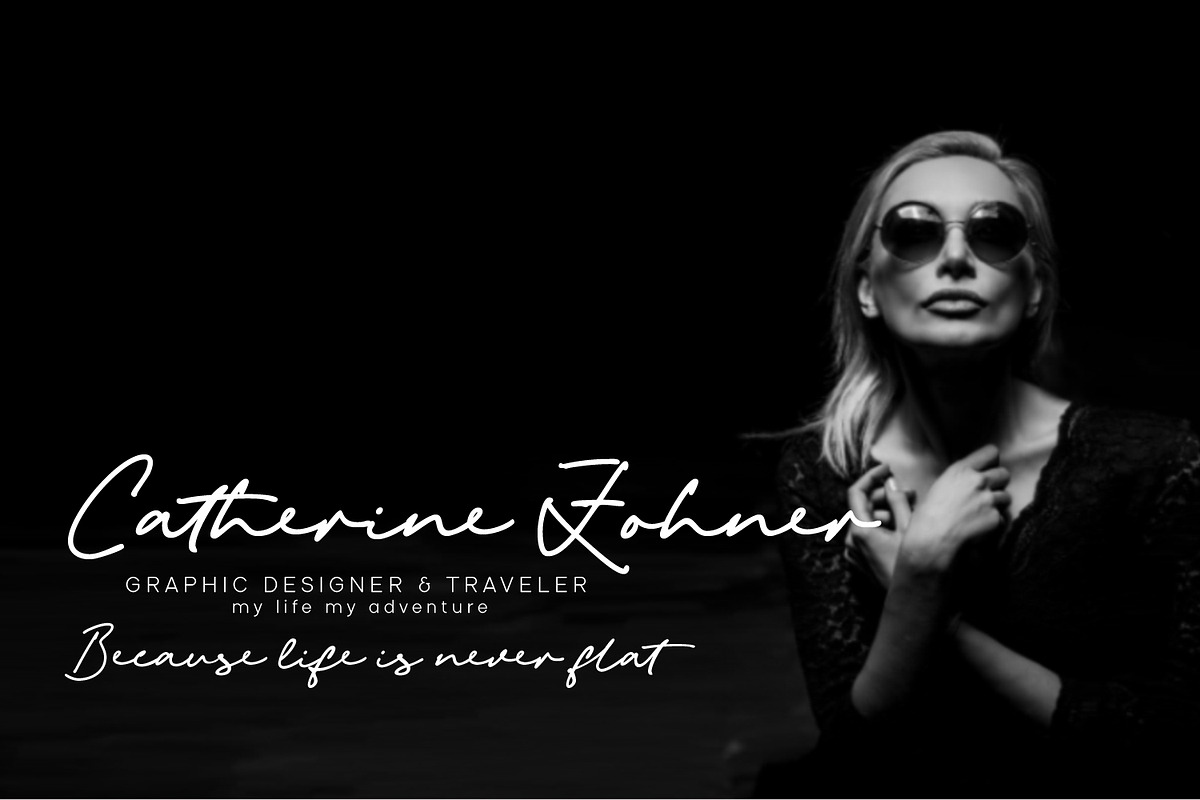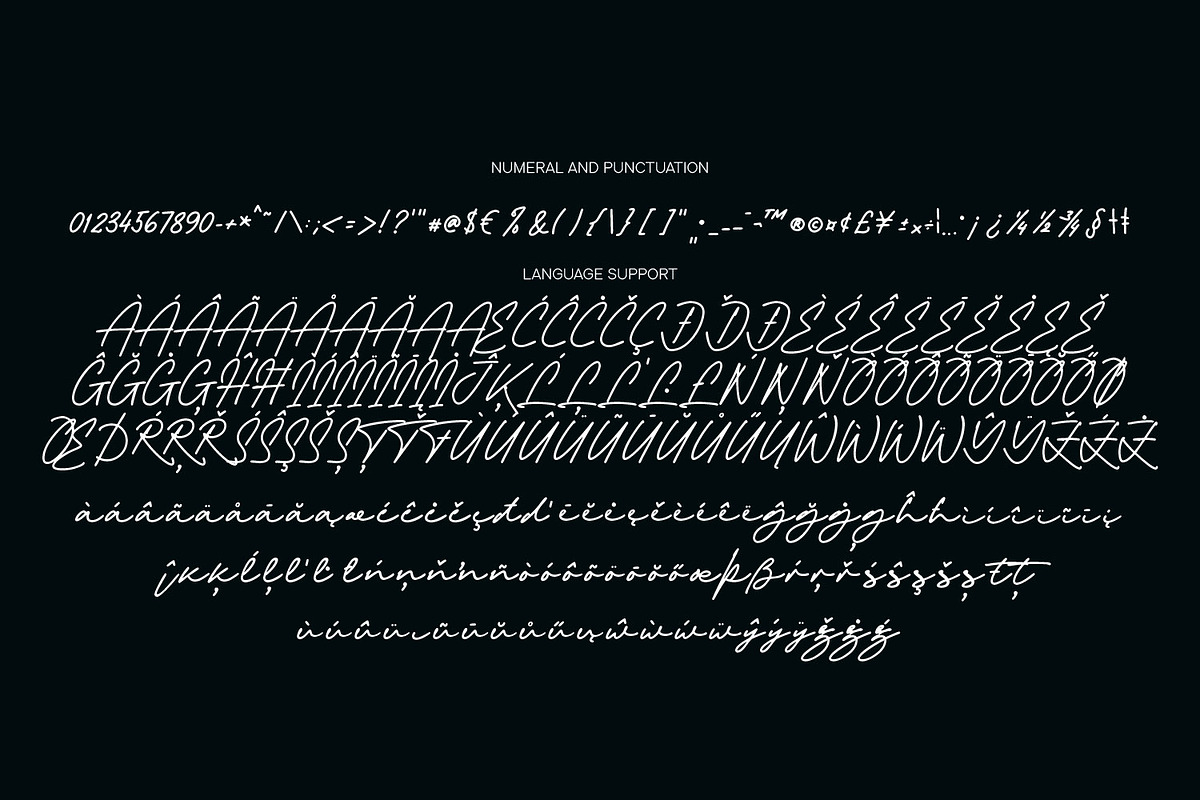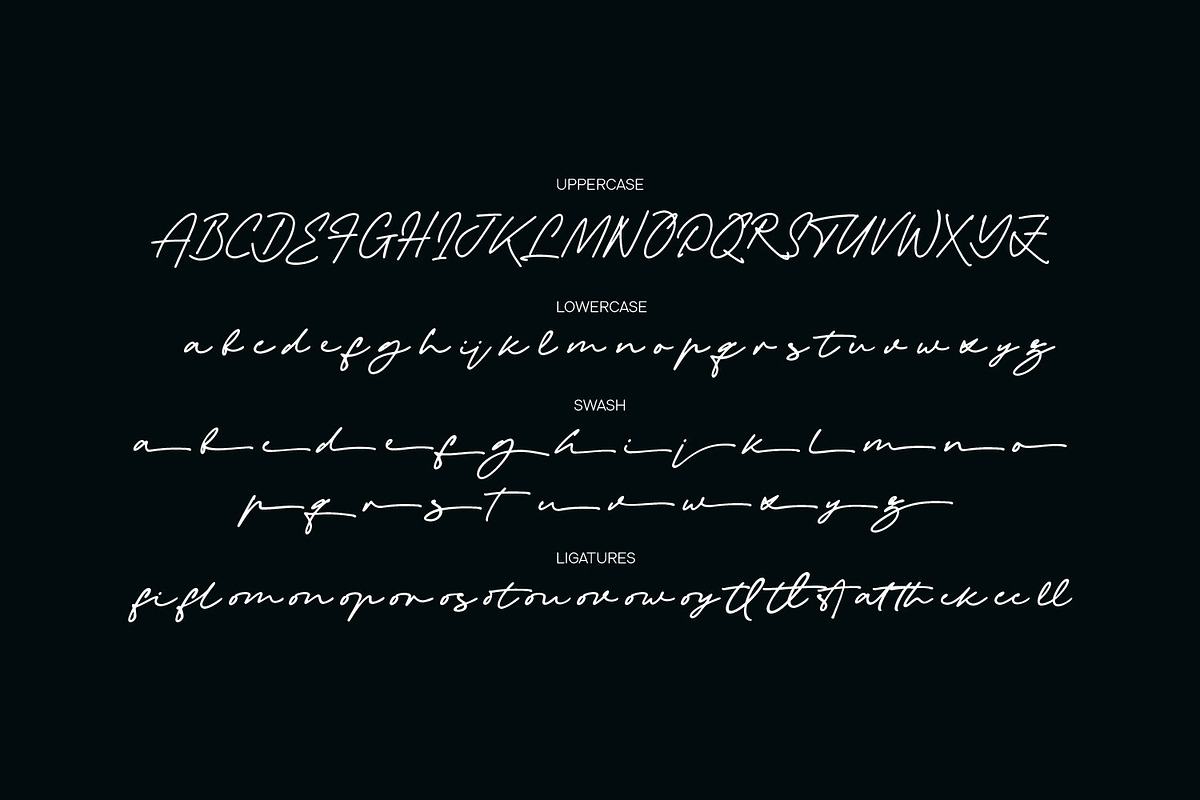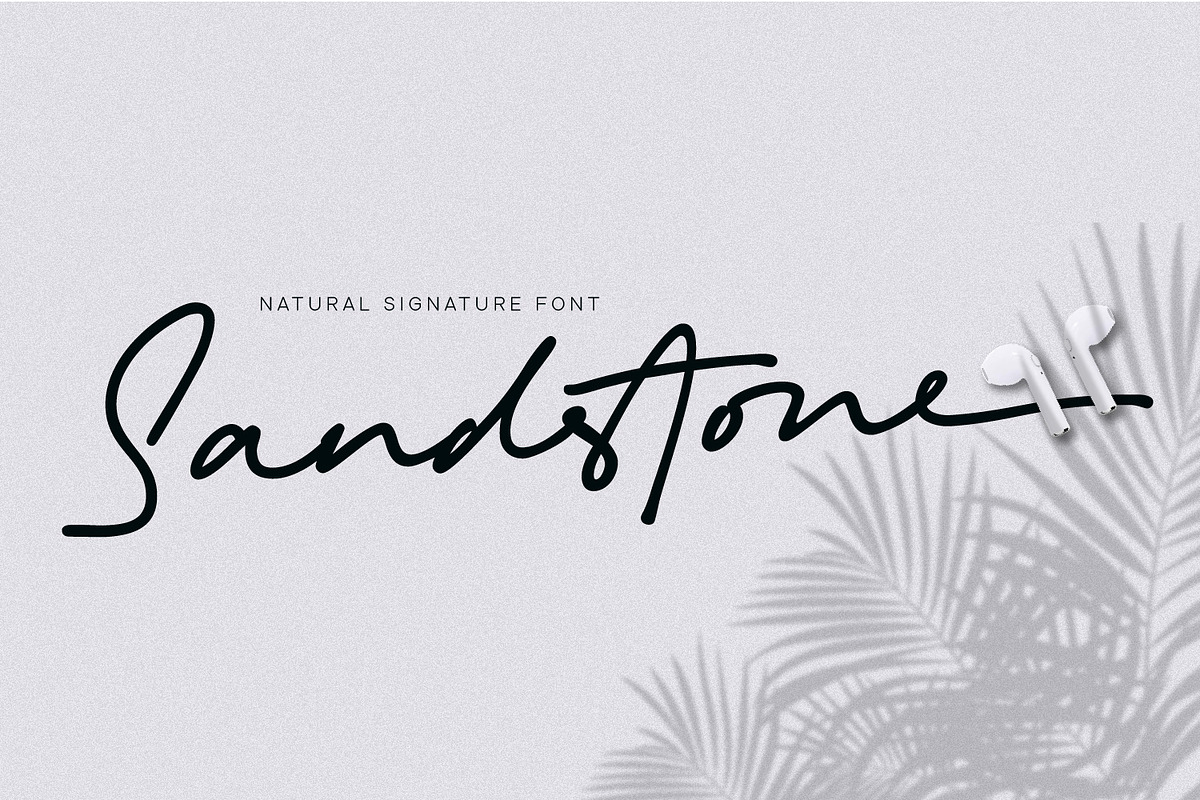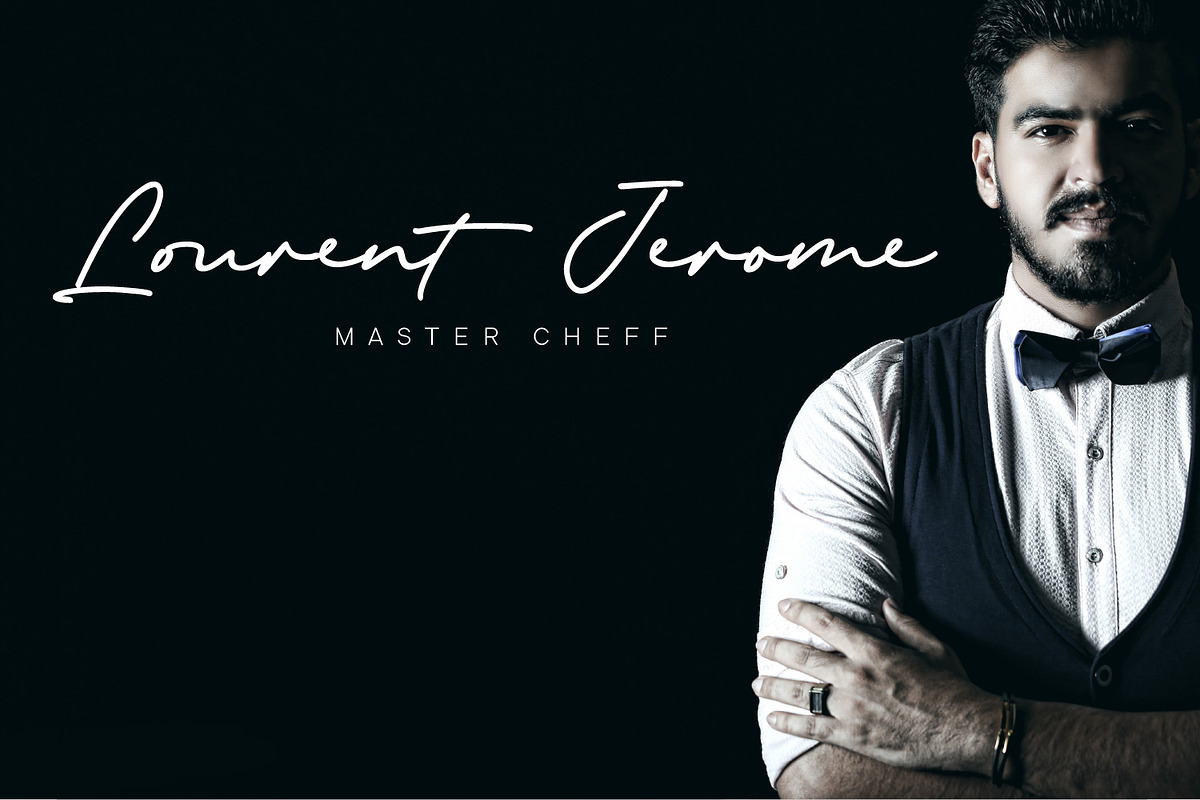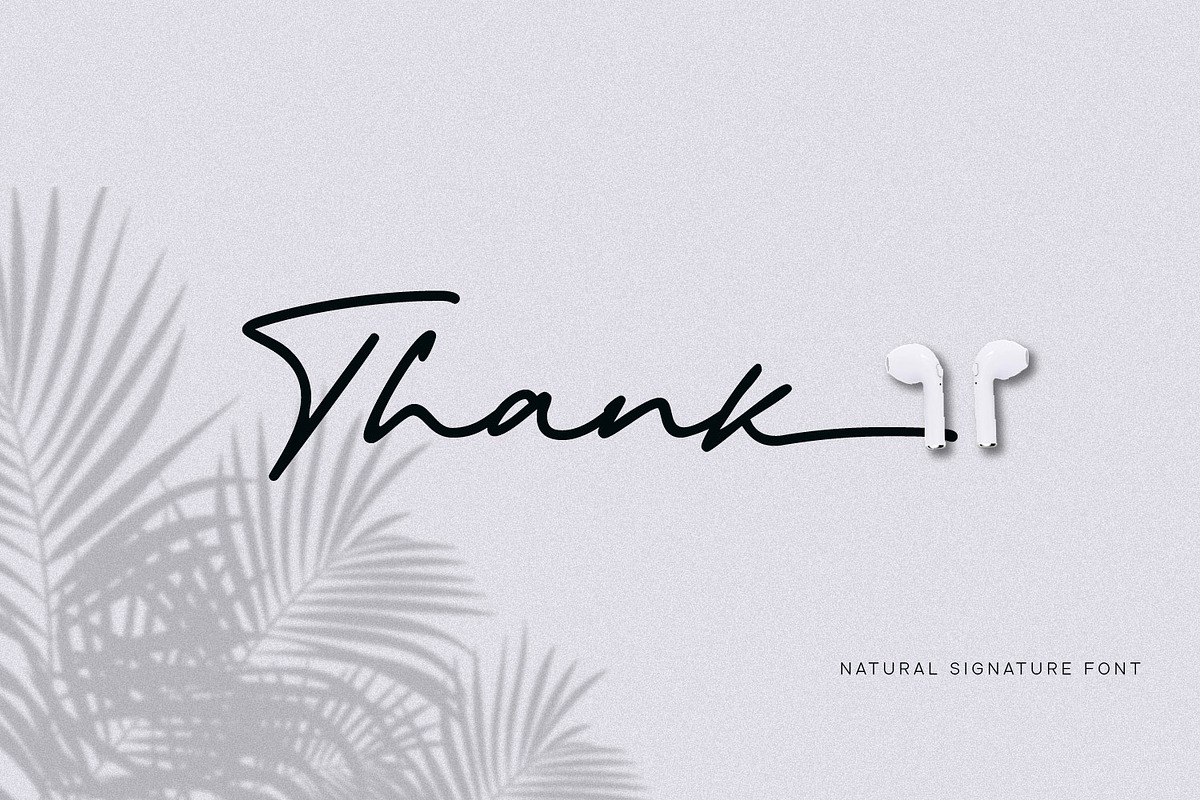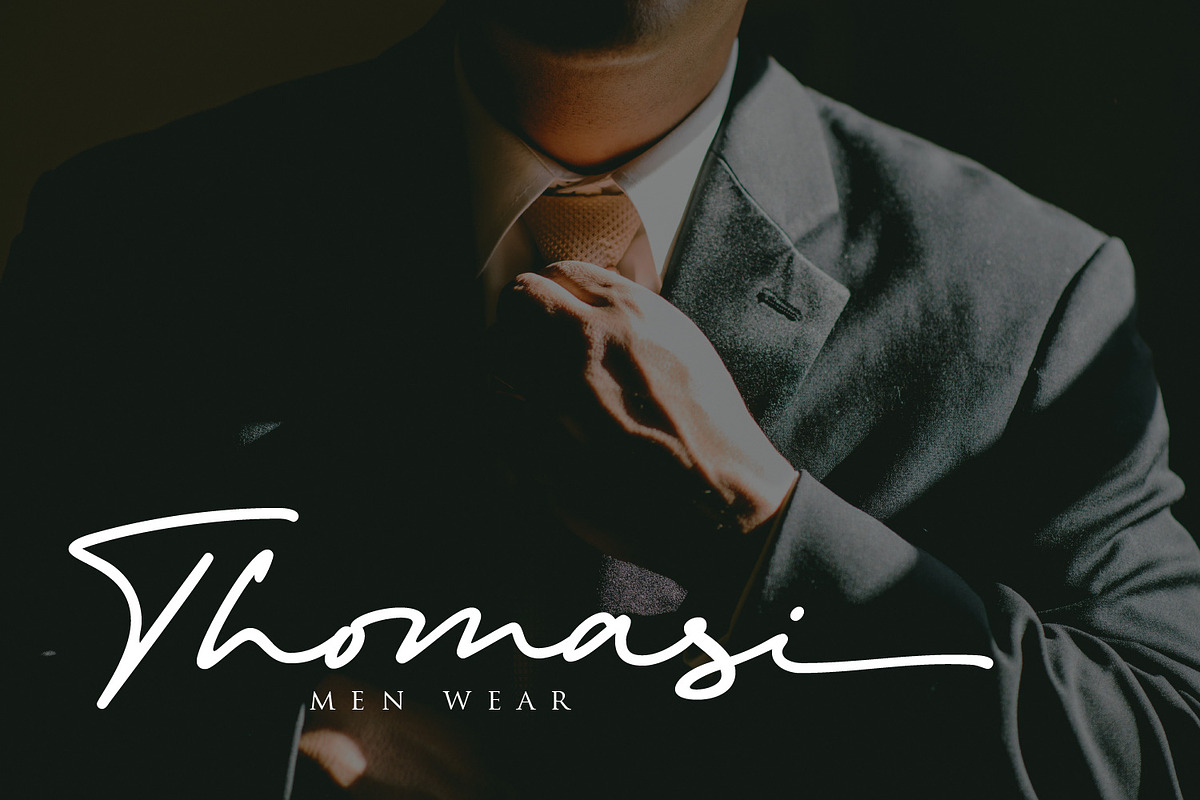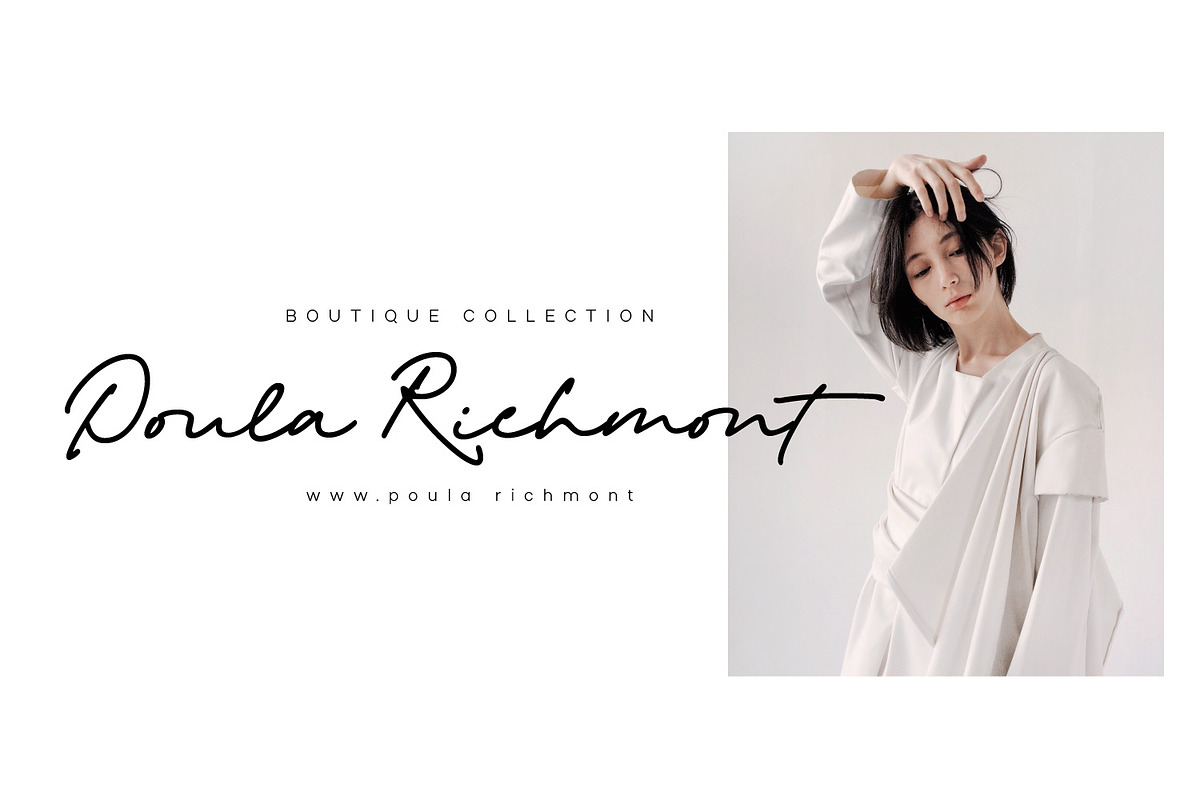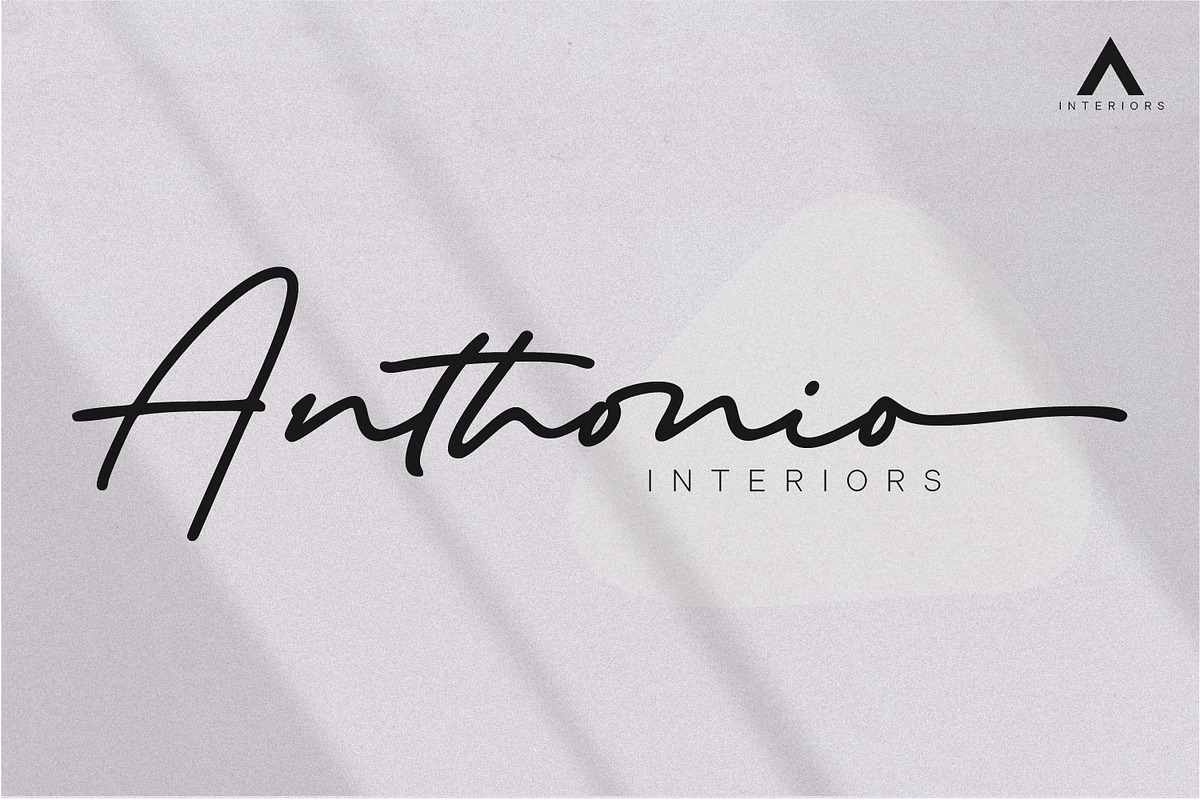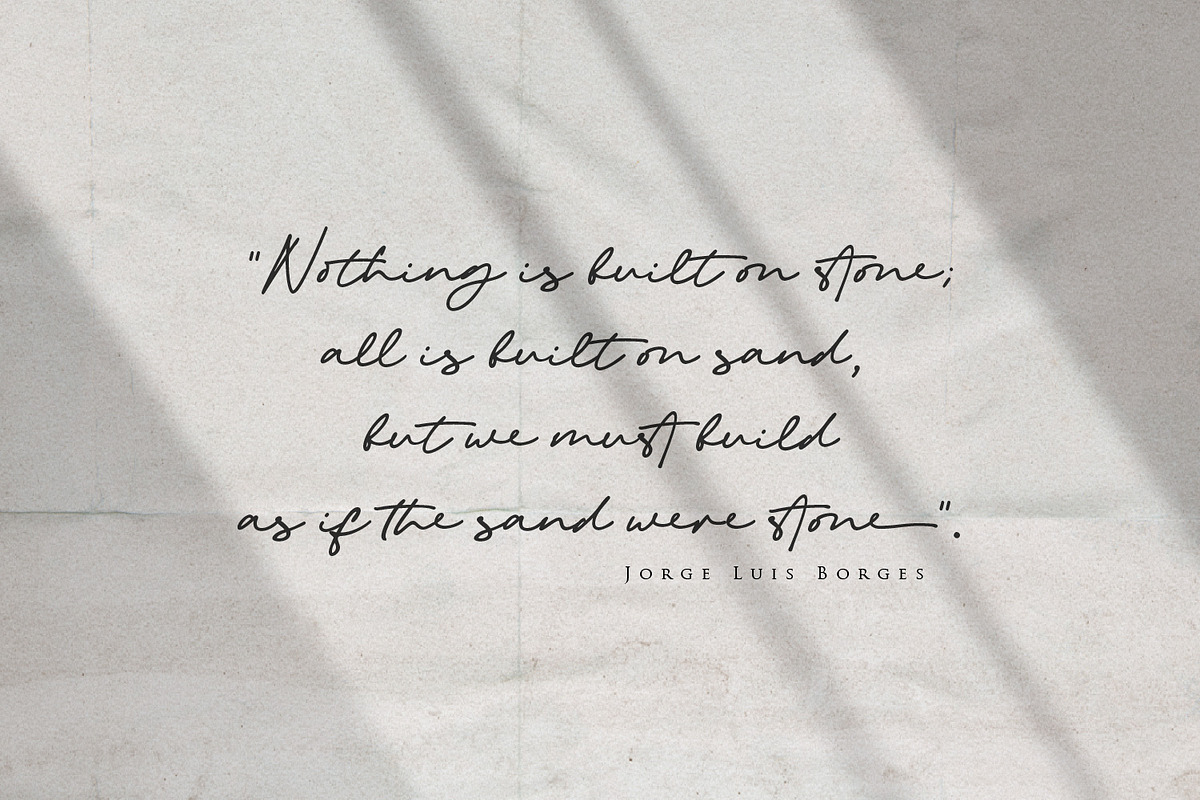
Sandstone
‘Sandstone’ is a signature font. This font deserves to be used as a signature font collection because a natural type signature like this one is very unique and is perfect for modern branding.
Perfectly used on website logos, electronic signatures, portfolios and prints for clothes, crafts and other media.
The constant, flat strokes of the letters symbolized assertiveness, plus an ‘end-swash’ to add a sense of absolute and confident judgment.
This font is equipped with ligatures to add a natural feel and supports multiple languages